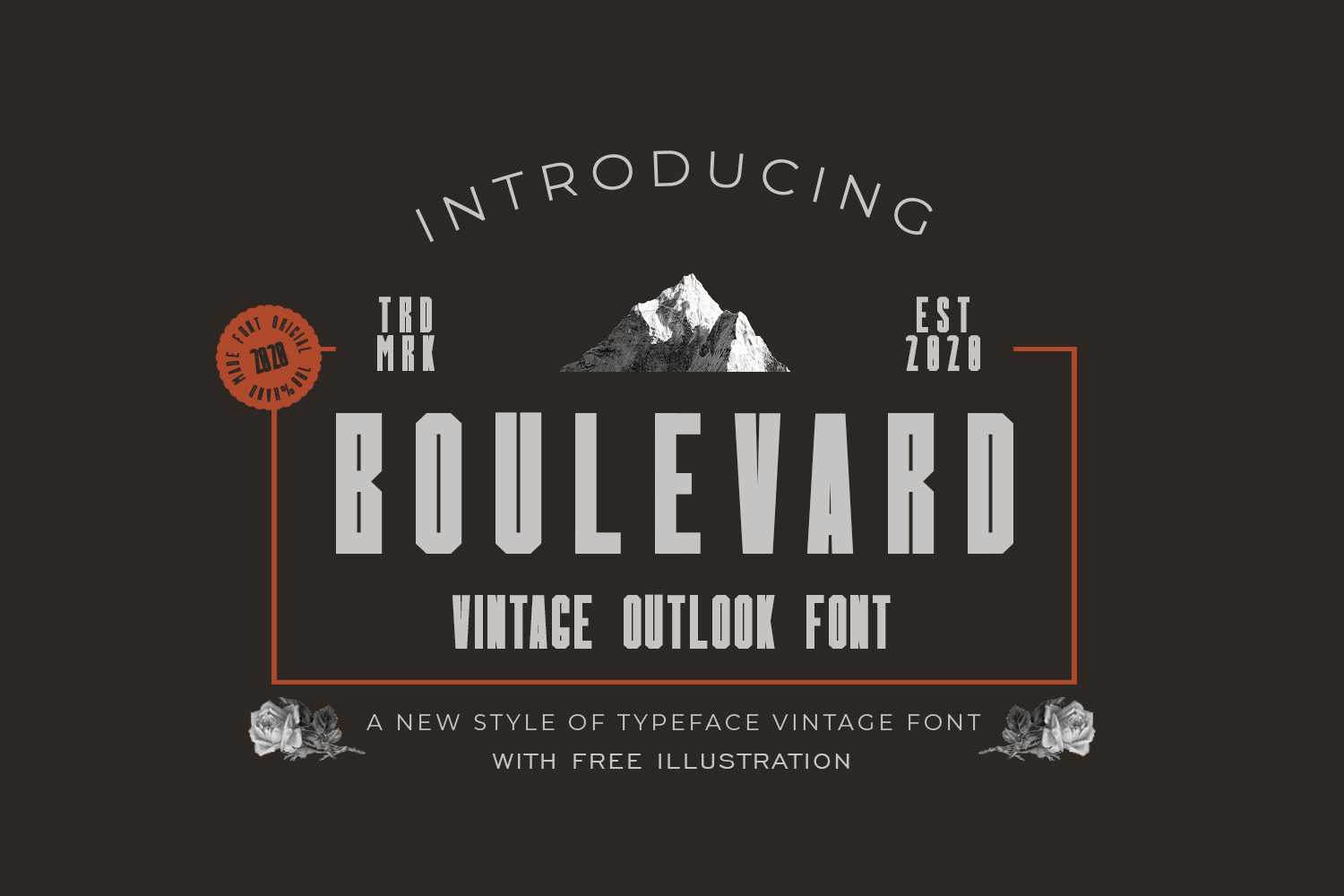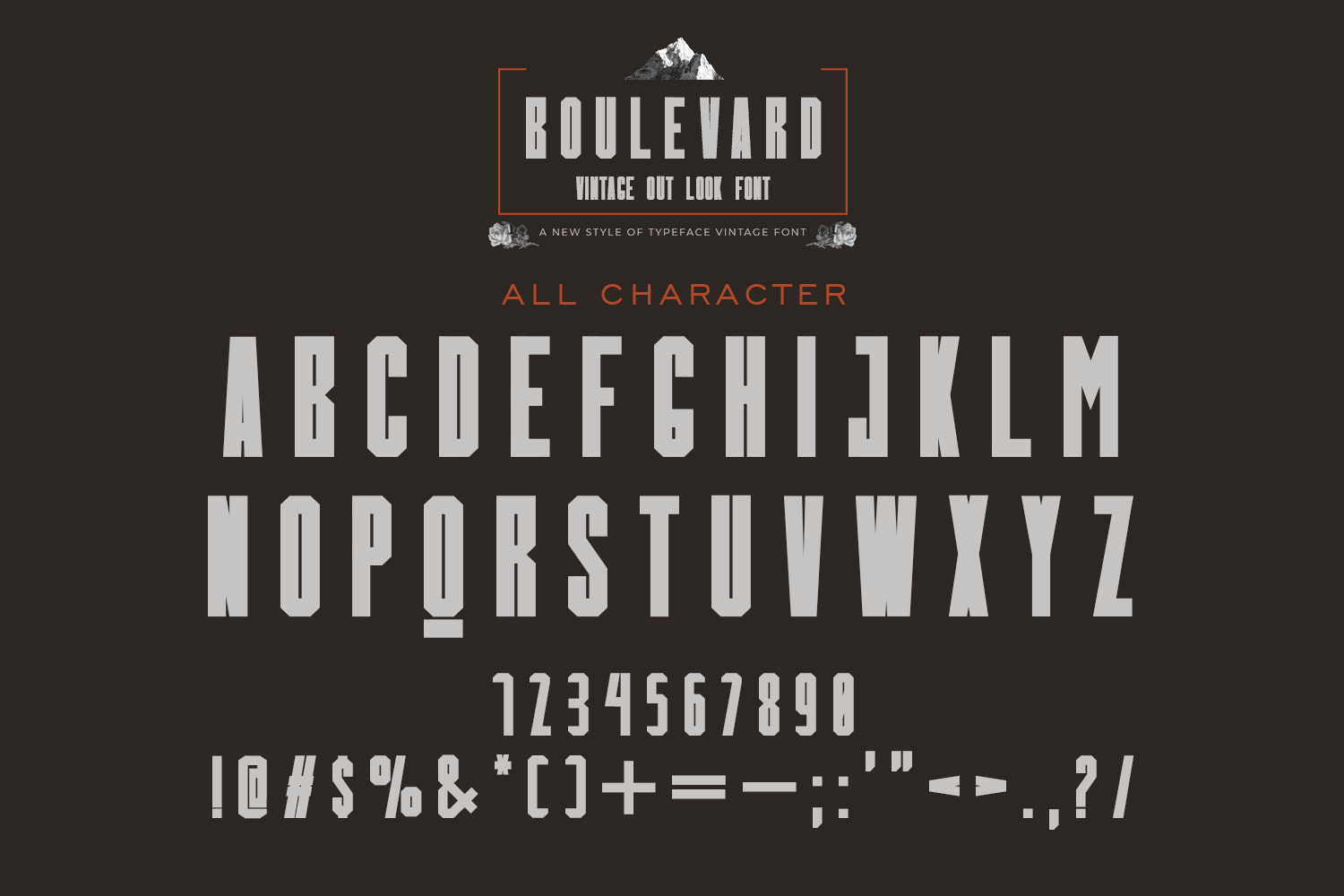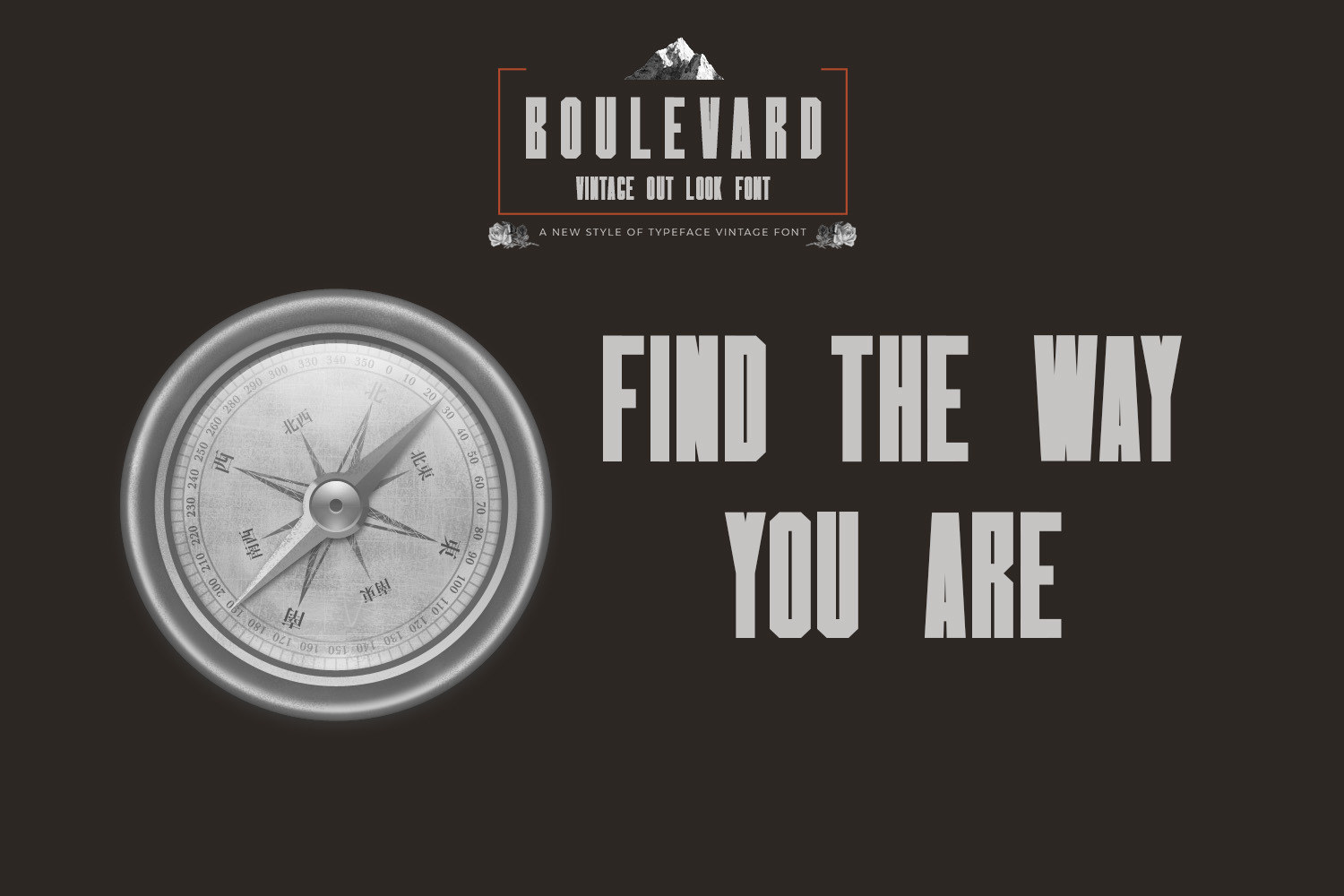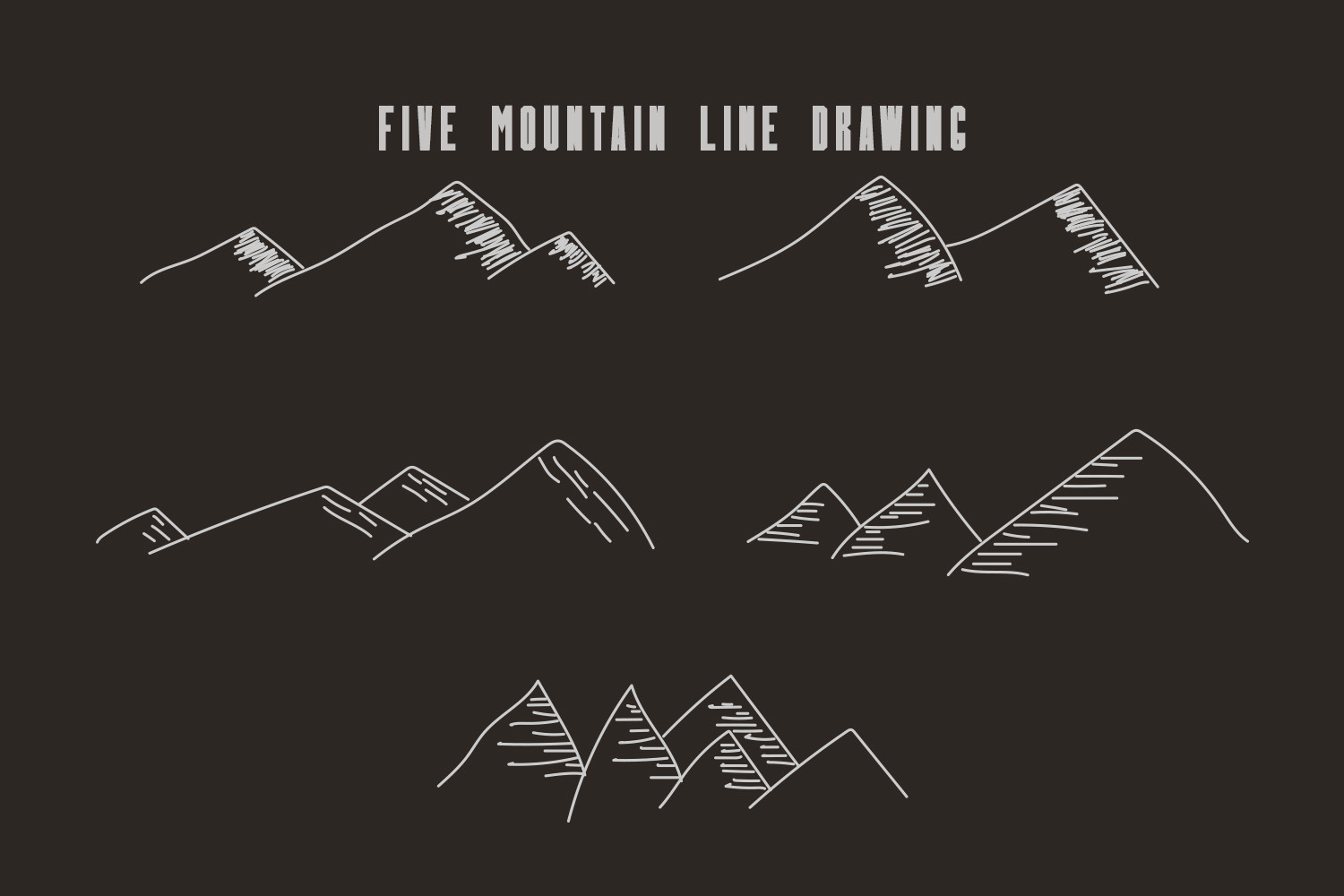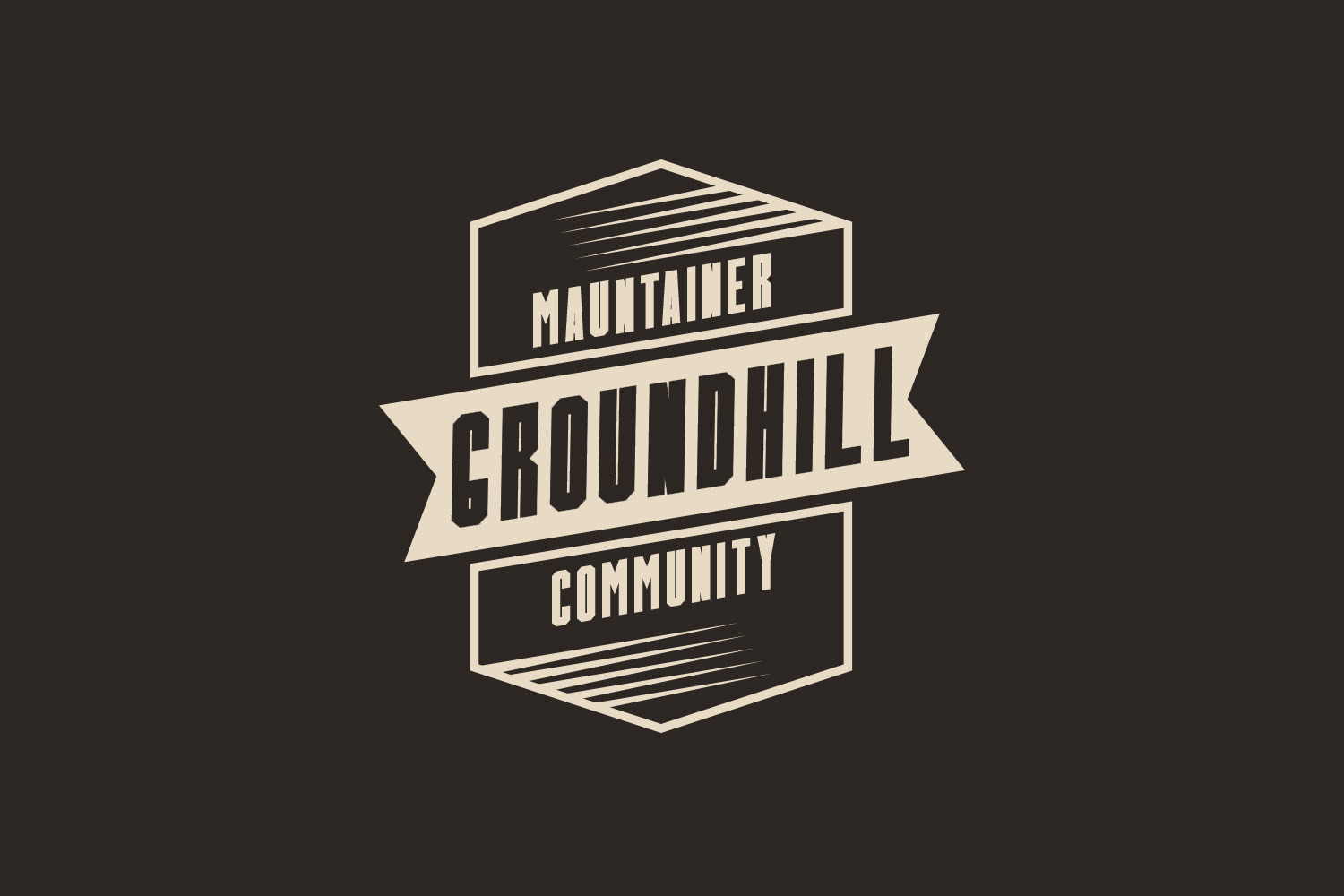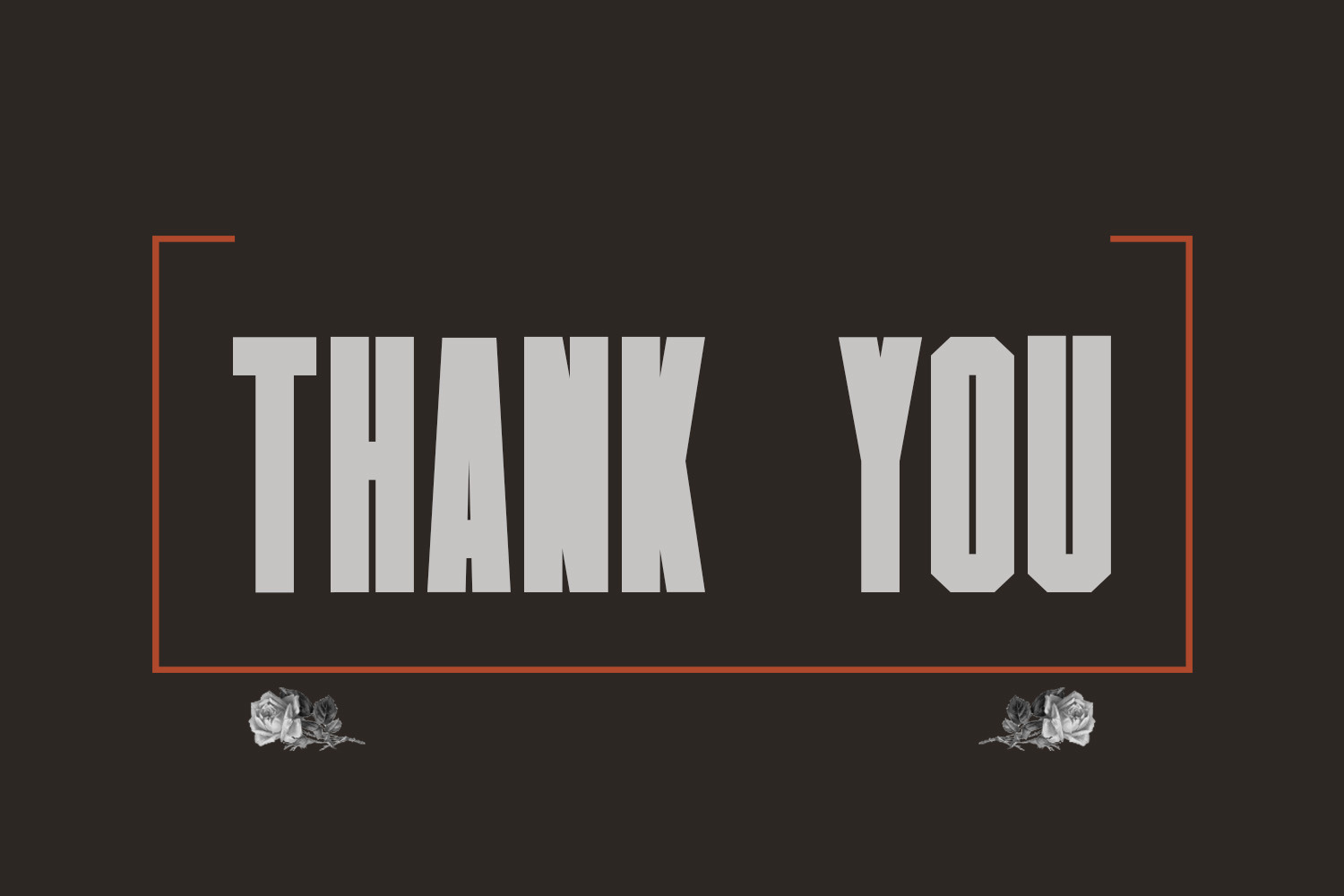
Boulevard Vintage Outlook Font
BOULEVARD is a vintage outlook Font with a FREE illustration, This font has a powerful character with a vintage design. The font is work specialty is good for product design like a Beer bottle package, Book, T-shirt, or you can use for your logo design, typography design, mountain starter pack, etc. This product is inspirational and playful for your creative design.